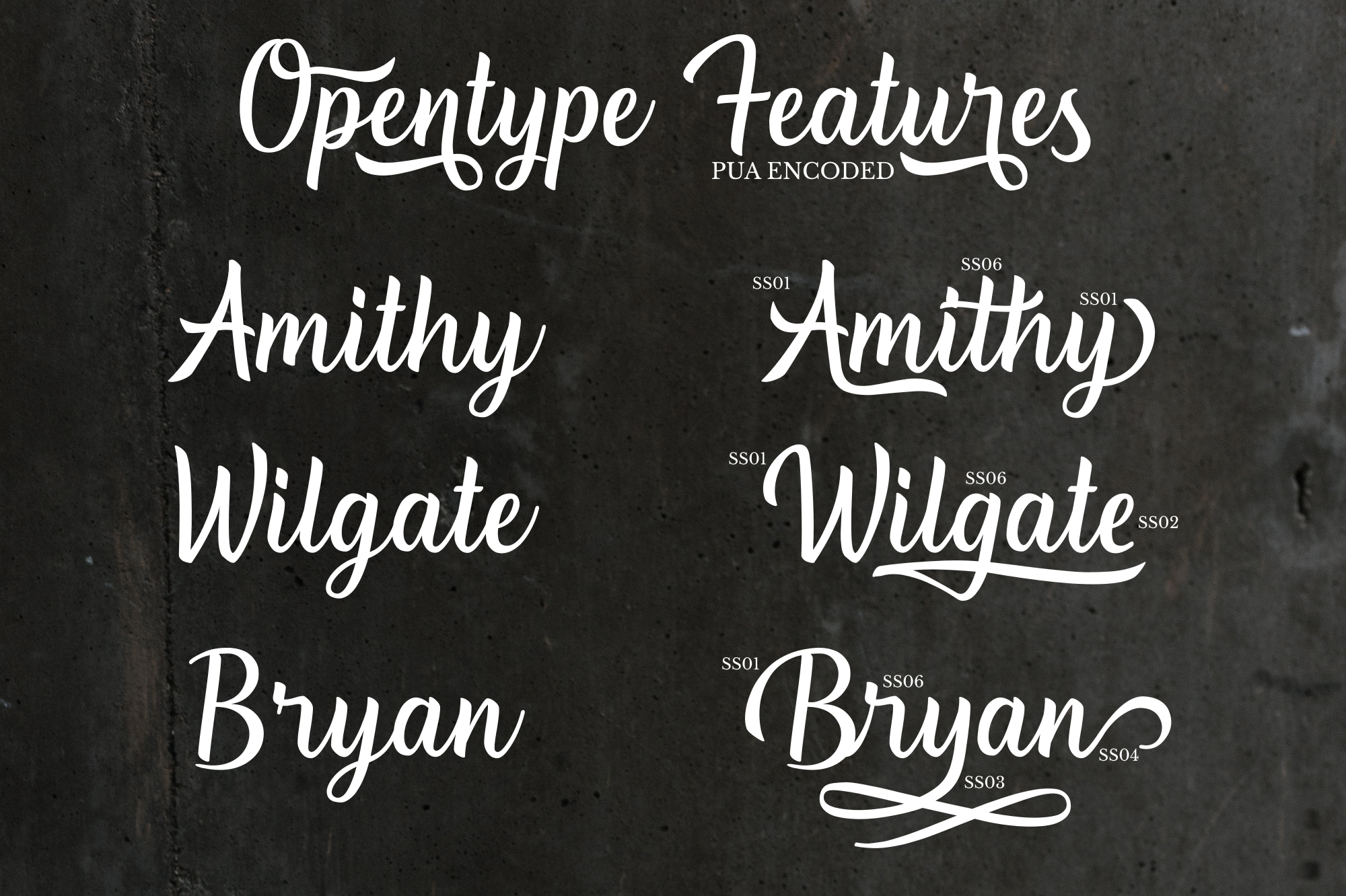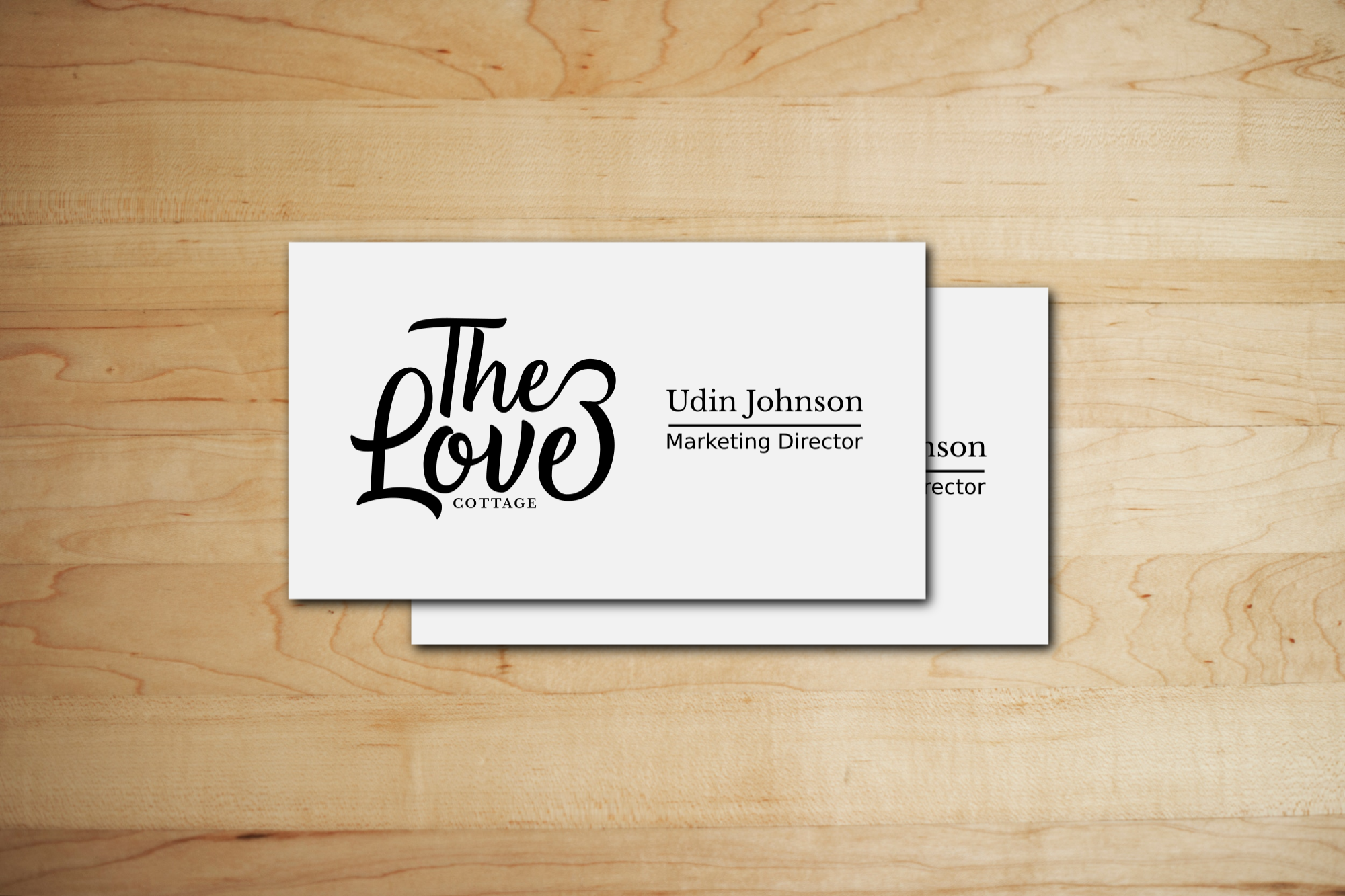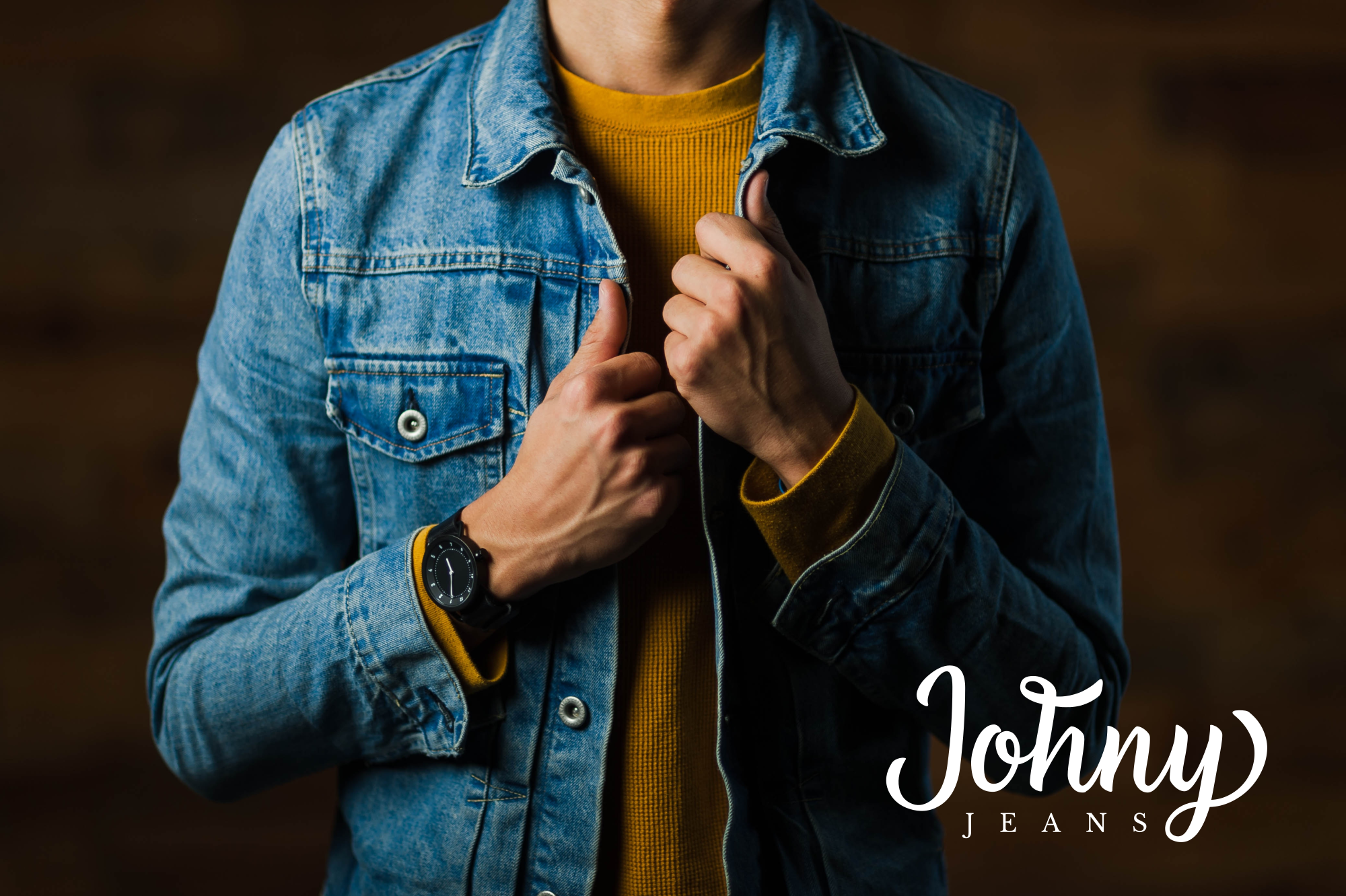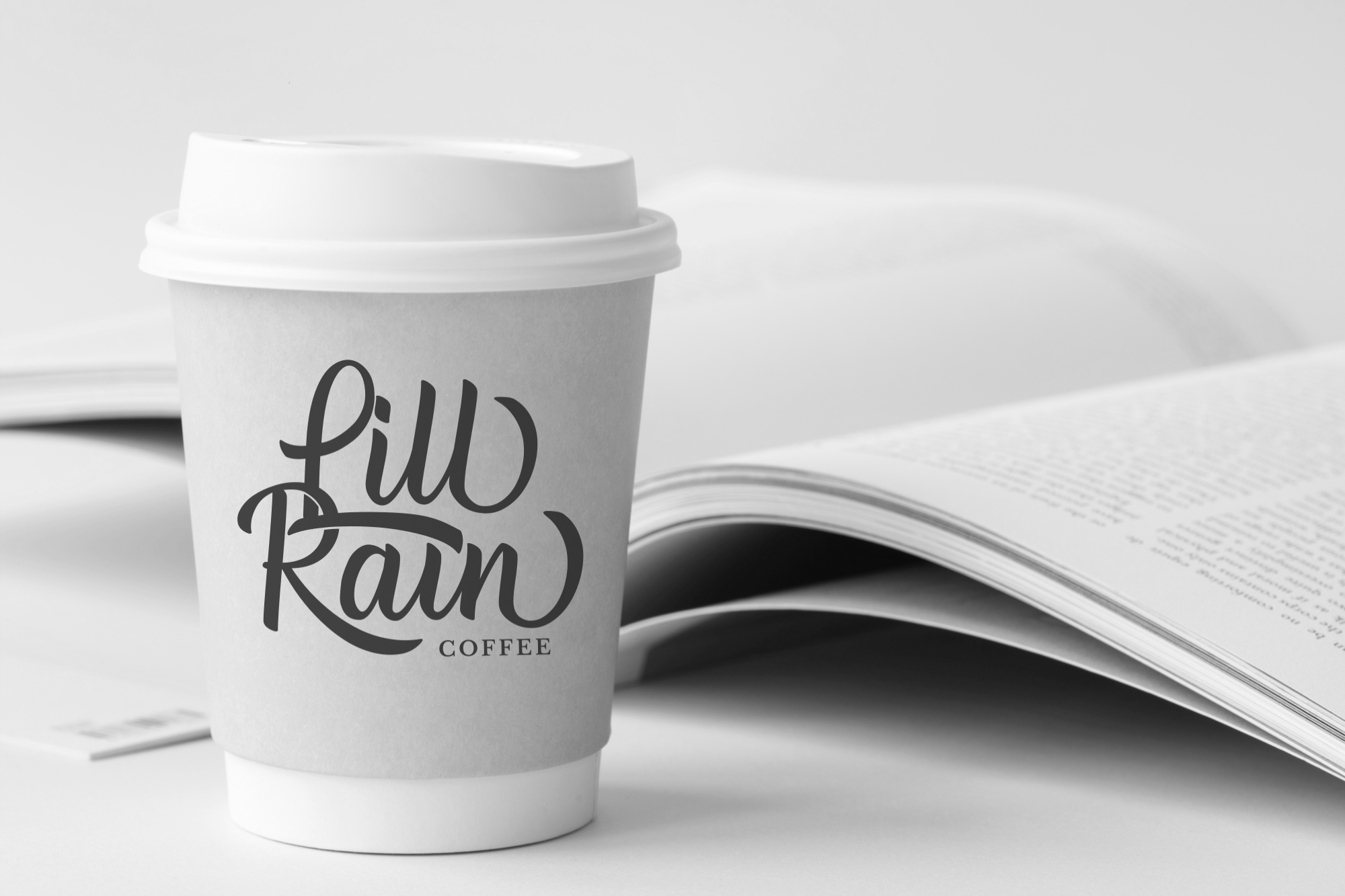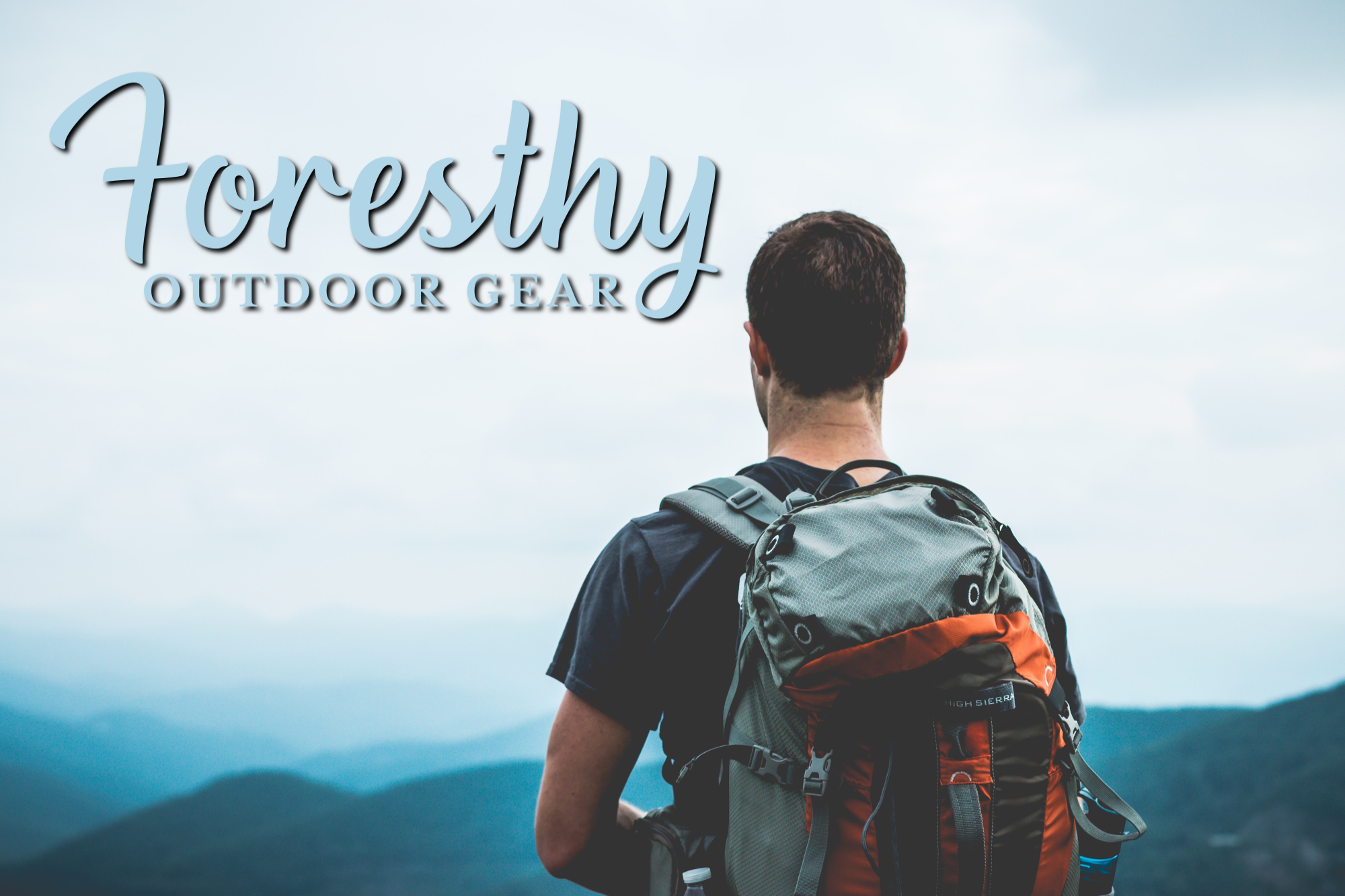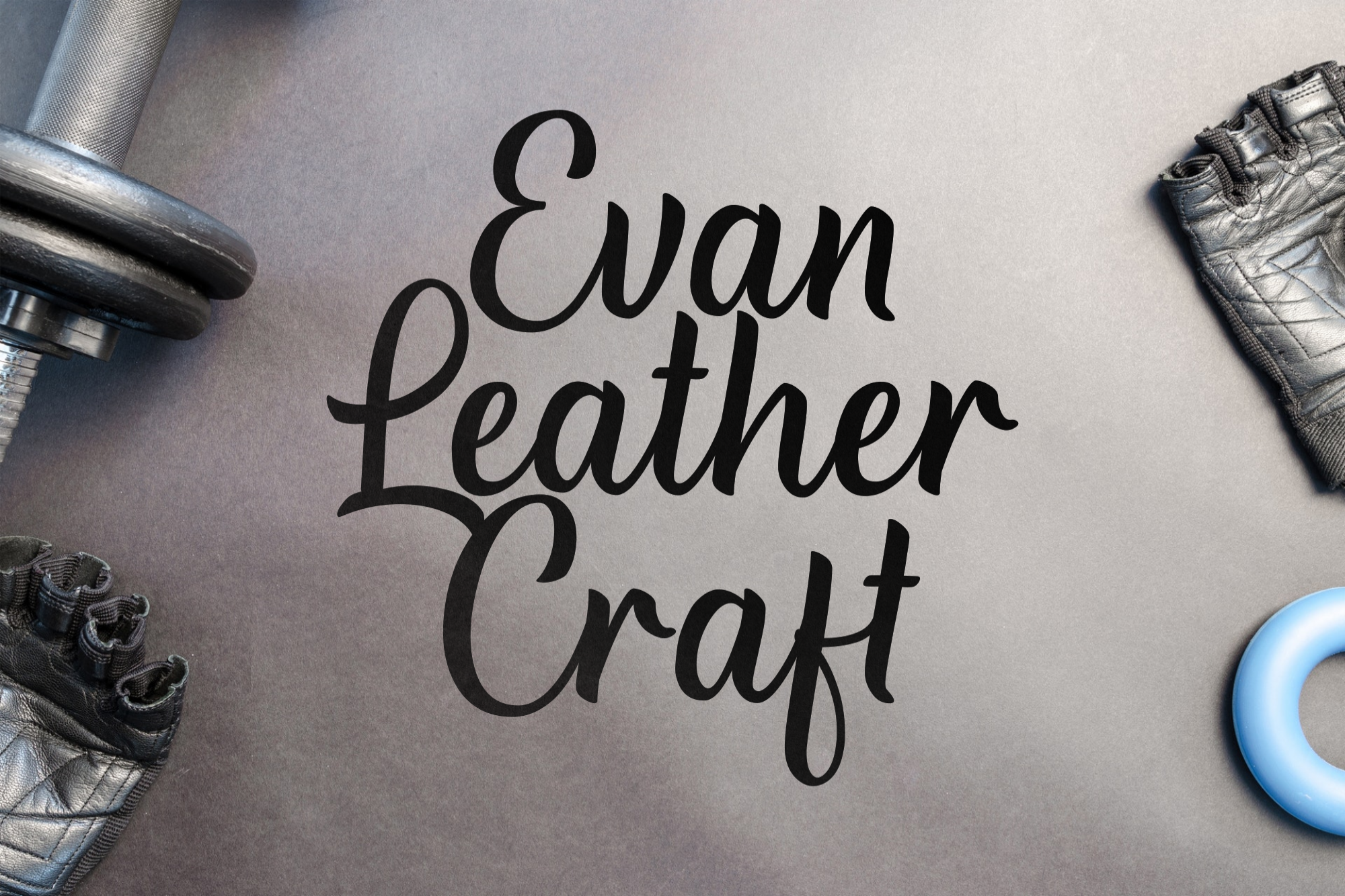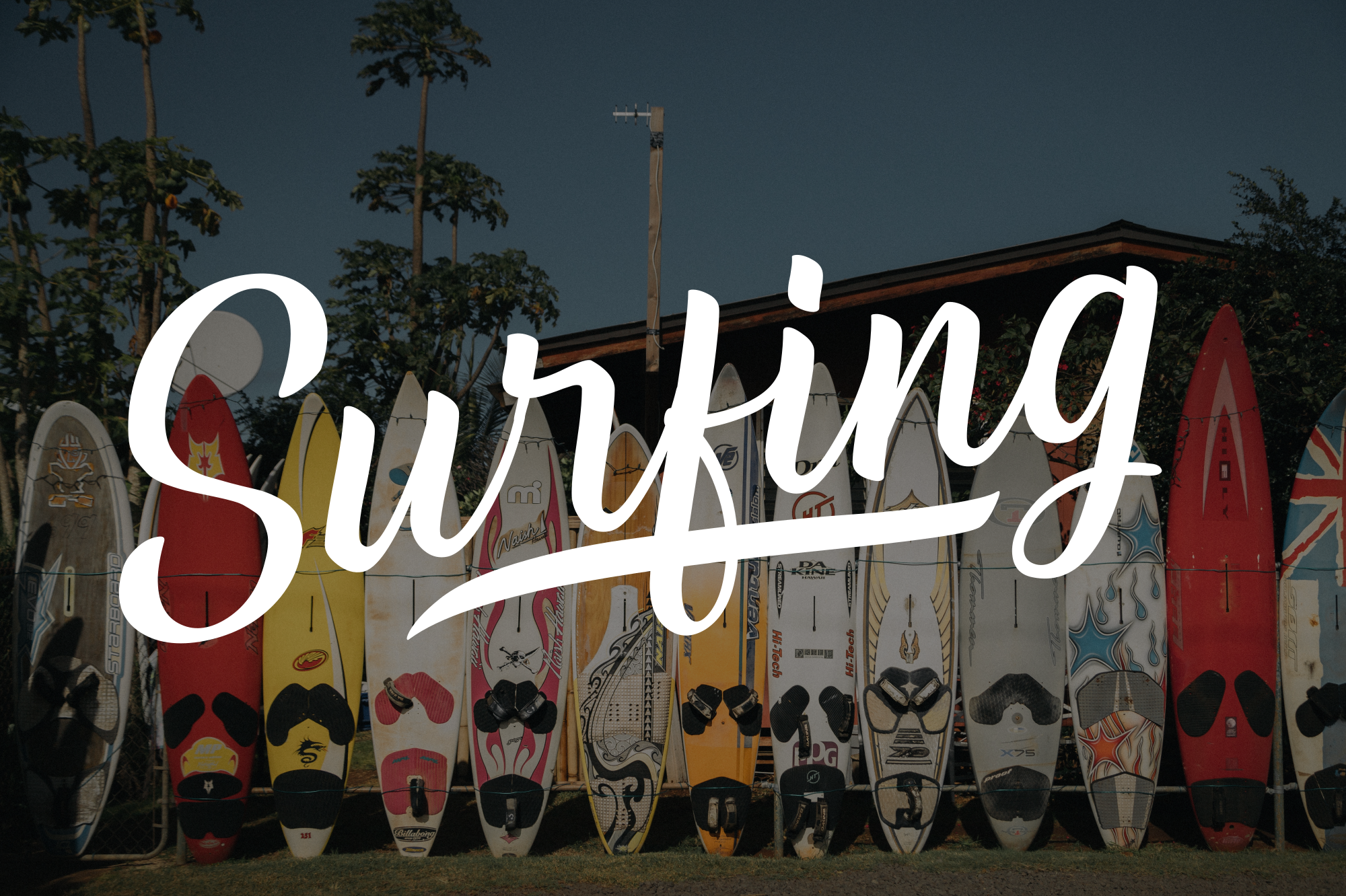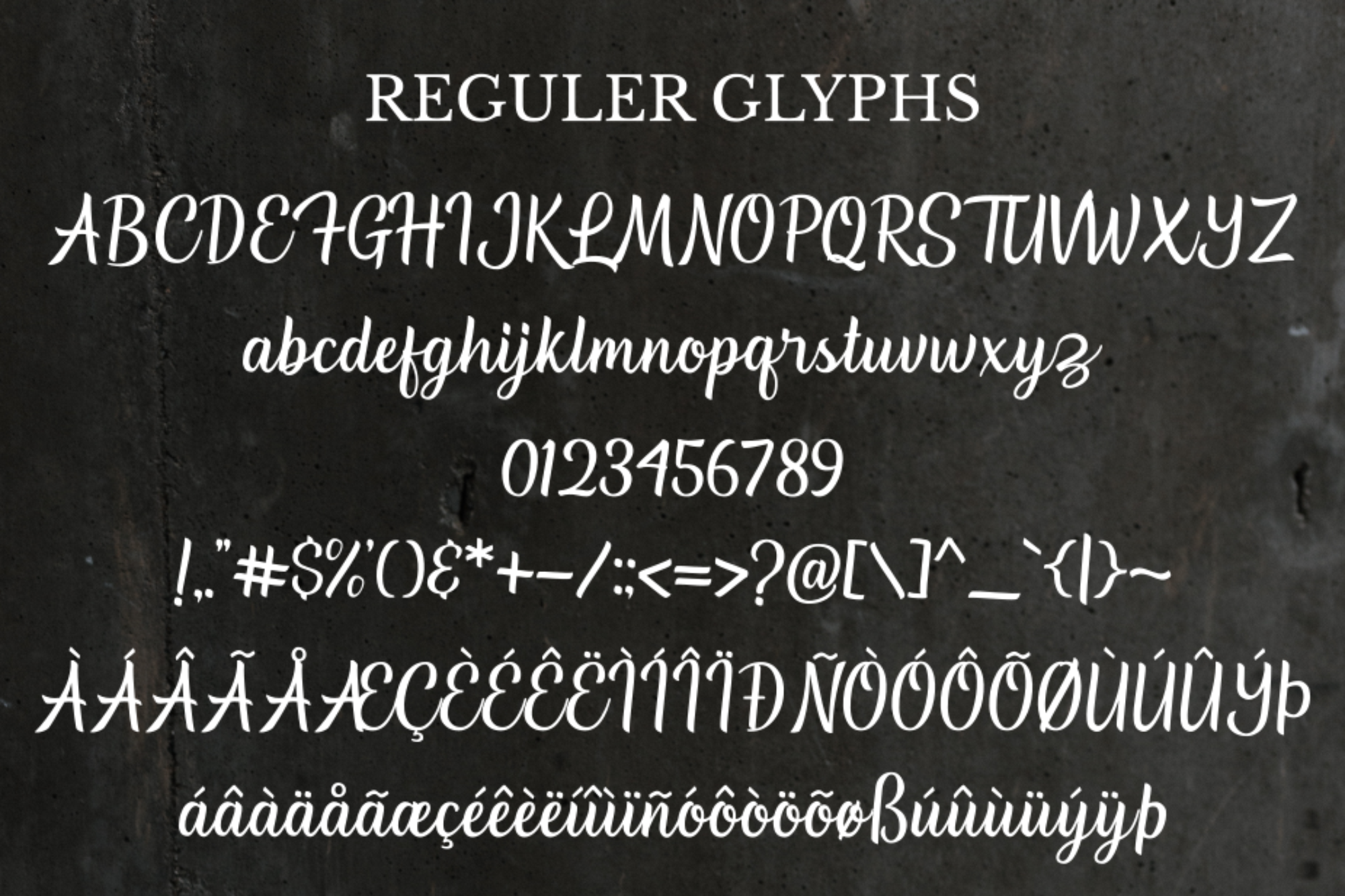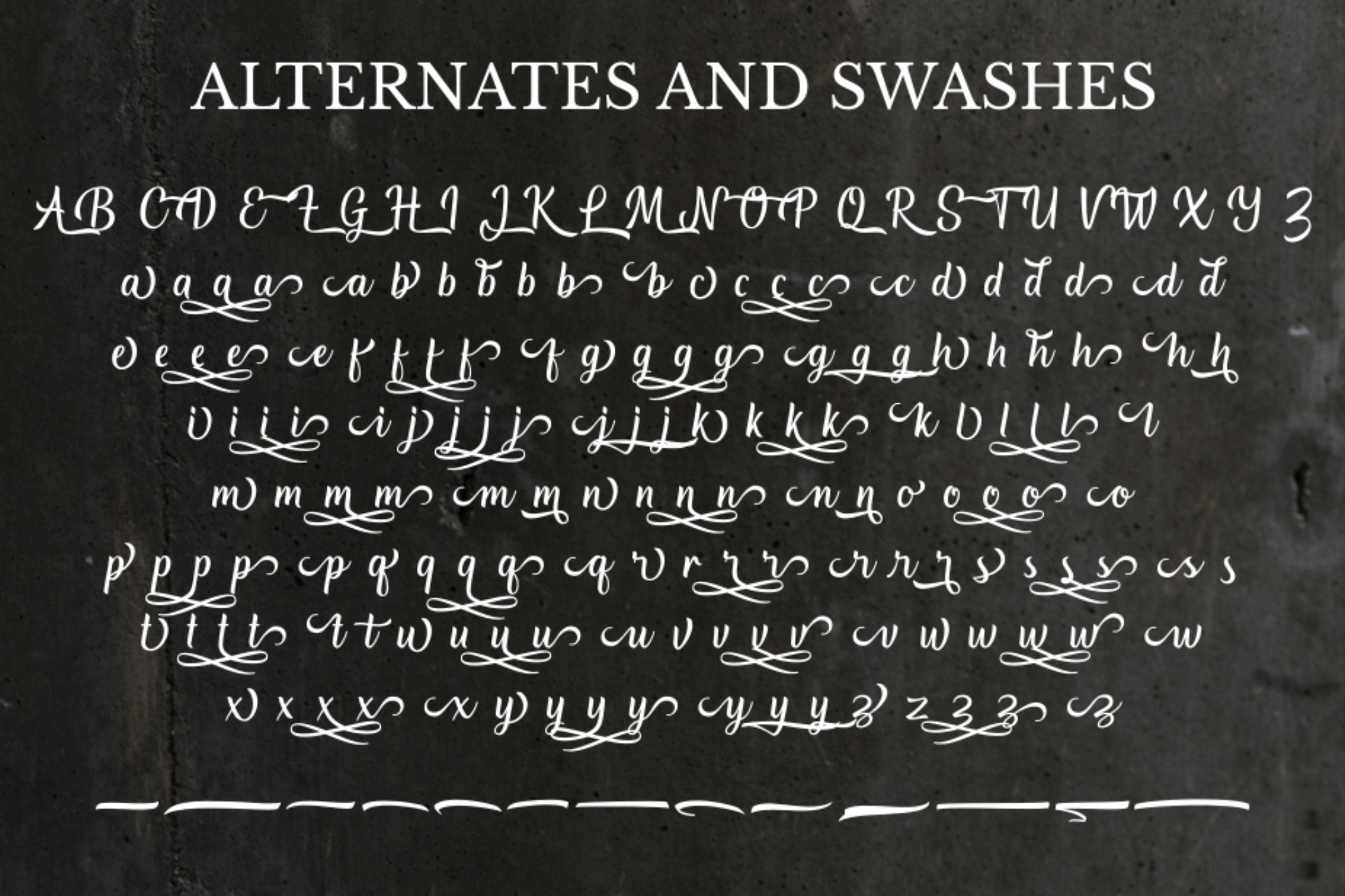
Southville - Handlettering Font
Southville is an amazing hand-lettering font. It includes beautiful swashes and has a strong look that can be used for logos, branding, wedding invitations, titles, signatures, t-shirts, letterheads, signboards, labels, posters, and much more.
Logos, branding, packaging, posters, and editorial applications